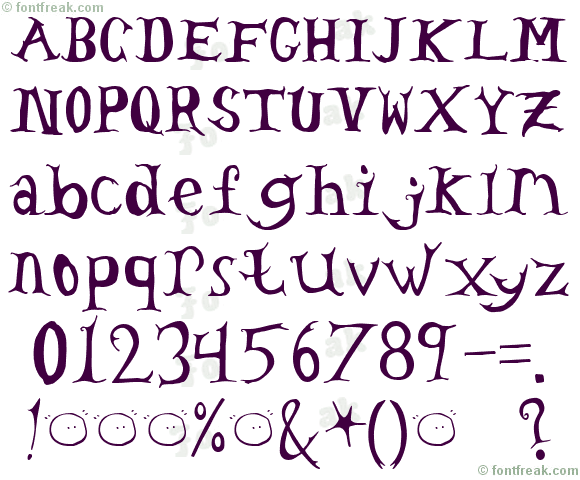
Tom's Headache
The "Tom's Headache" font, created by Divide By Zero, falls into the decorative category, offering a whimsical and distinctly quirky aesthetic. This font features unique, irregular shapes that convey a playful and lighthearted tone. The stroke weight varies, giving each letter a hand-drawn feel that adds character to any design. With its moderate spacing and unconventional letterforms, "Tom's Headache" captures attention and evokes a sense of fun, making it suitable for projects that aim to stand out.
This font is ideal for a variety of creative applications. It's perfect for designing engaging wedding invitations, where a light-hearted touch can enhance the overall theme. Additionally, it works wonderfully for movie posters, particularly for comedies or family films, as it adds a whimsical flair that resonates with audiences. Restaurant menus can also benefit from this font, especially in casual dining settings, where a friendly atmosphere is key. Moreover, content creators can use "Tom's Headache" in social media graphics or promotional materials, making their posts more visually appealing and memorable.
The target audience for "Tom's Headache" includes graphic designers looking to add a unique touch to their projects, small business owners wanting to create eye-catching branding, and content creators seeking to engage their followers with playful typography.
What makes "Tom's Headache" stand out is its ability to convey a cheerful and relaxed vibe while remaining versatile across various design contexts. Its freeware license allows users to download and utilize the font freely, offering creative possibilities without financial constraints. For those searching for a distinctive typeface that combines fun and functionality, the "Tom's Headache font free download" is an excellent choice that will elevate any project.